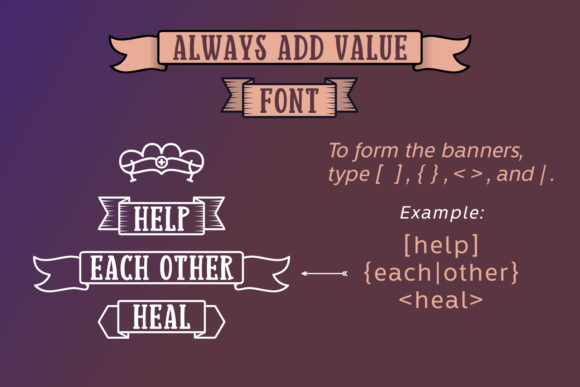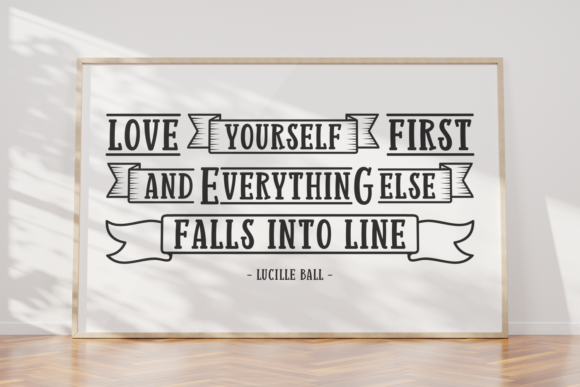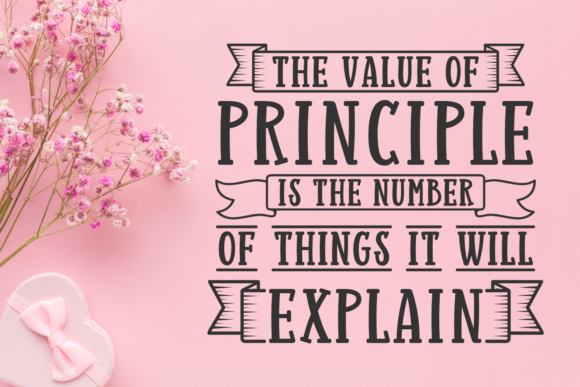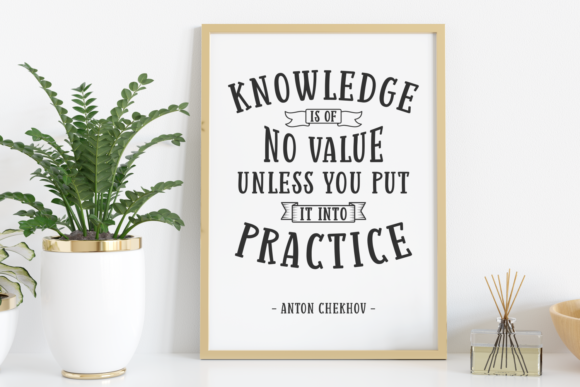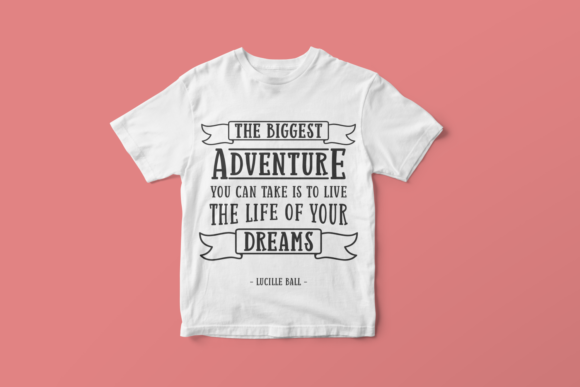
Introducing Always Add Value Font: The Friendly Serif Font for All Your Design Needs
Are you tired of using the same old fonts in your designs? Look no further! We’re excited to introduce you to the “Always Add Value” font, a cute and casual serif font that’s sure to bring a friendly feel to your projects. Whether you’re designing for web, print, moving images, or anything else, this font is sure to look spectacular.
What Makes Always Add Value Font Special?
The Always Add Value font is designed to be incredibly friendly and approachable. Its serif style gives it a classic and timeless look, while its casual feel makes it perfect for designs that need a personal touch. The font is versatile and can be used for a wide range of projects, from branding and advertising to packaging and editorial design.
Key Features of Always Add Value Font
- Cute and Casual Design: The Always Add Value font has a playful and informal design that’s perfect for creating friendly and approachable designs.
- Serif Style: The font features a classic serif style that gives it a timeless and elegant look.
- Versatile: The font is suitable for a wide range of projects, including web, print, moving images, and more.
- Easy to Read: The font is designed to be easy to read, making it perfect for body text and other long-form content.
How to Use Always Add Value Font in Your Designs
The Always Add Value font is easy to use and can be incorporated into your designs in a variety of ways. Here are a few ideas to get you started:
- Branding and Logo Design: Use the Always Add Value font to create a friendly and approachable brand identity.
- Web Design: The font is perfect for web design, and can be used for headings, body text, and more.
- Print Design: Use the font for print projects such as brochures, flyers, and business cards.
- Editorial Design: The font is suitable for editorial design, including magazines, newspapers, and books.
Why Choose Always Add Value Font?
There are many fonts available, but the Always Add Value font stands out for its unique combination of friendliness and versatility. Here are a few reasons why you should choose this font for your next project:
- Unique Design: The Always Add Value font has a unique and distinctive design that’s sure to make your designs stand out.
- High-Quality: The font is designed to be high-quality and easy to read, making it perfect for a wide range of projects.
- Easy to Use: The font is easy to use and can be incorporated into your designs quickly and easily.
The Always Add Value font is a versatile and friendly serif font that’s perfect for designers and crafters. Its unique combination of classic and casual styles makes it suitable for a wide range of projects, from branding and advertising to packaging and editorial design. With its high-quality design and ease of use, this font is sure to become a favorite in your design toolkit.